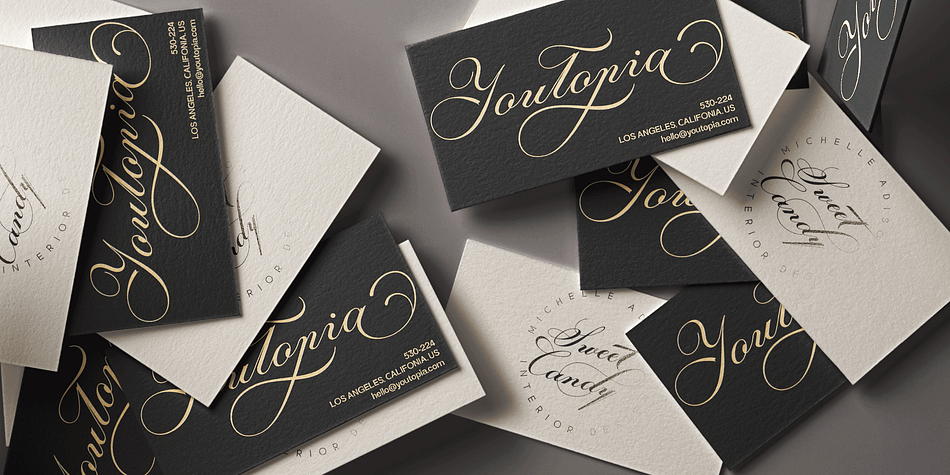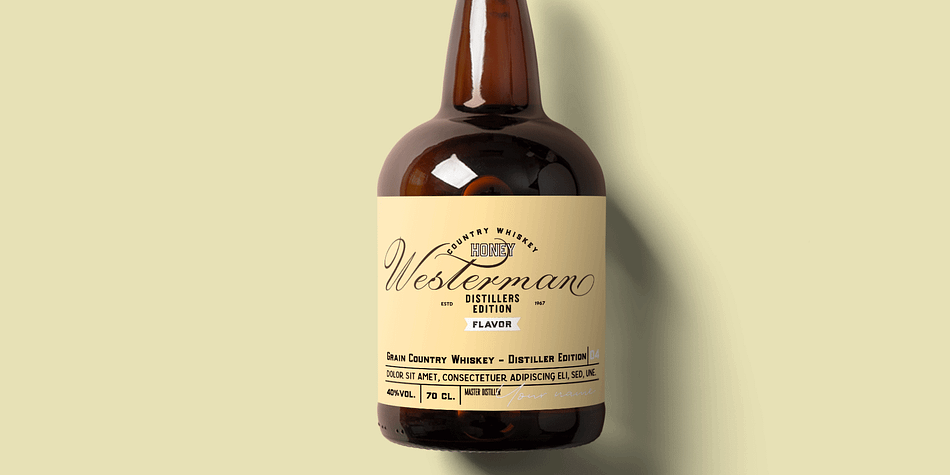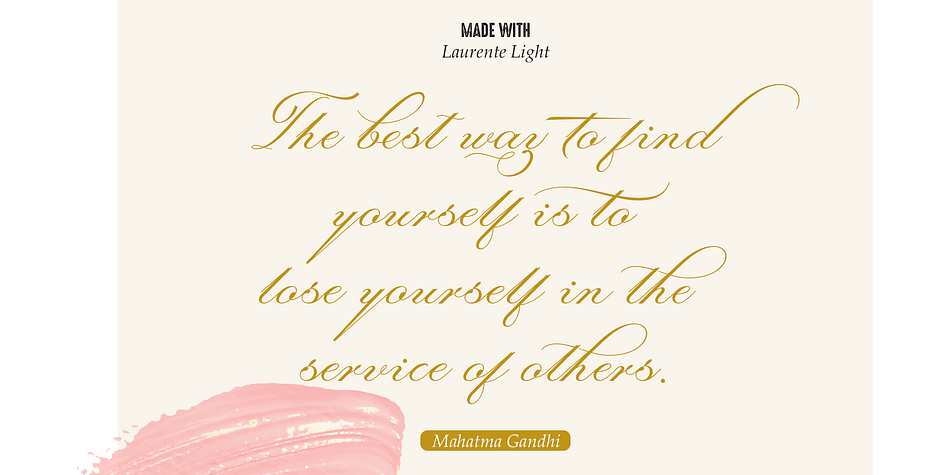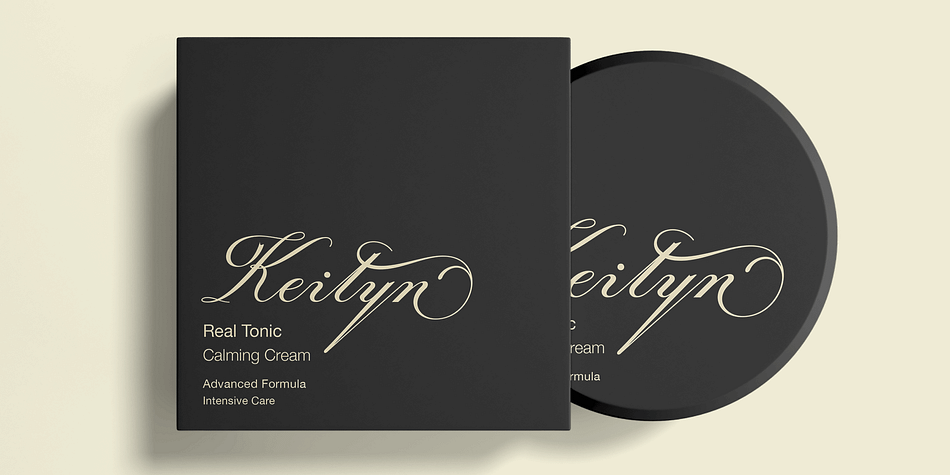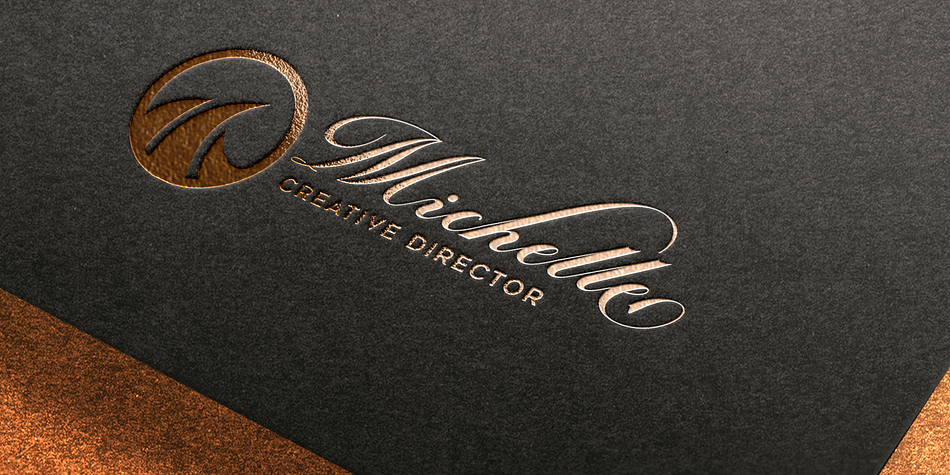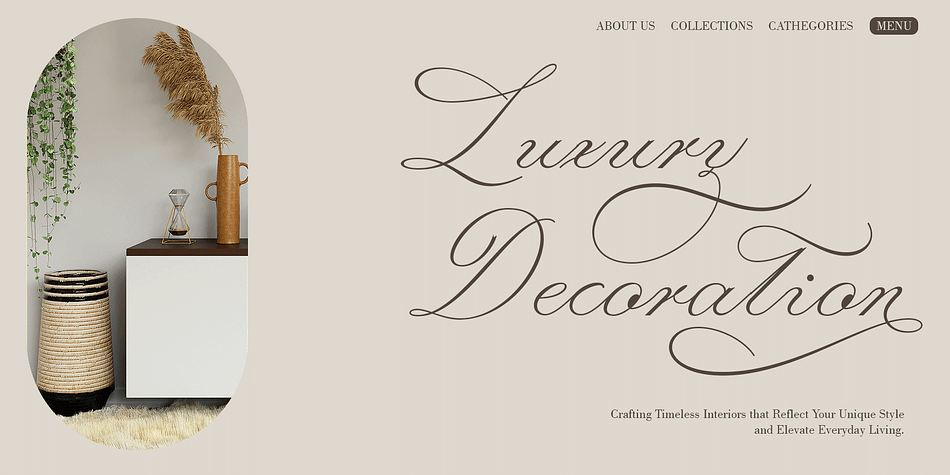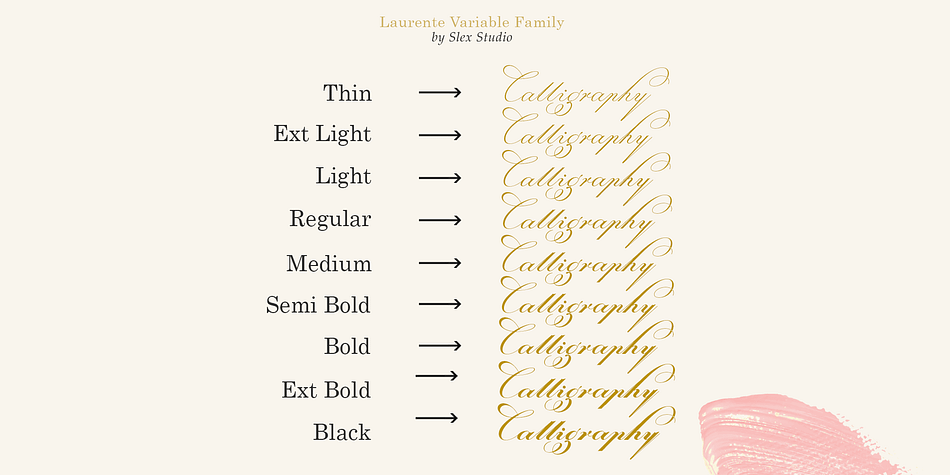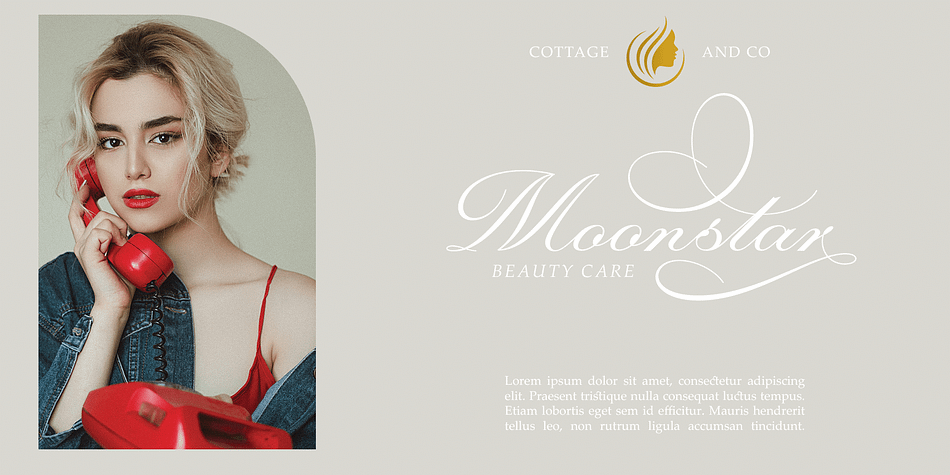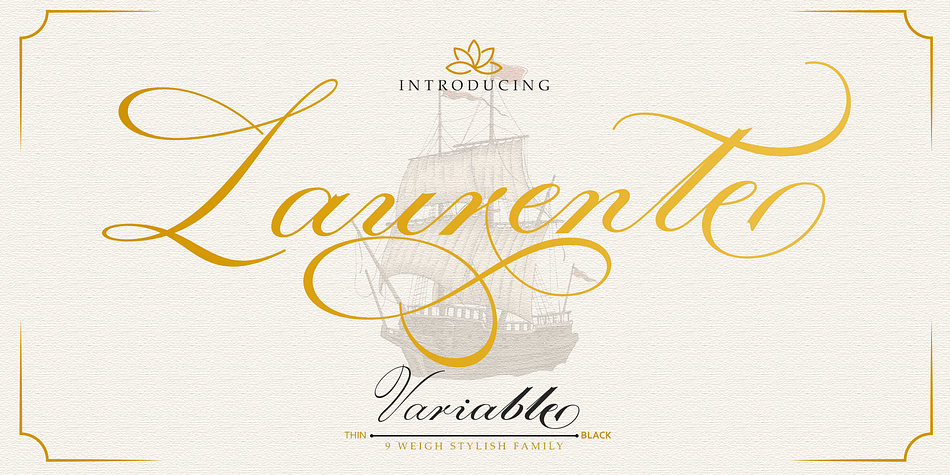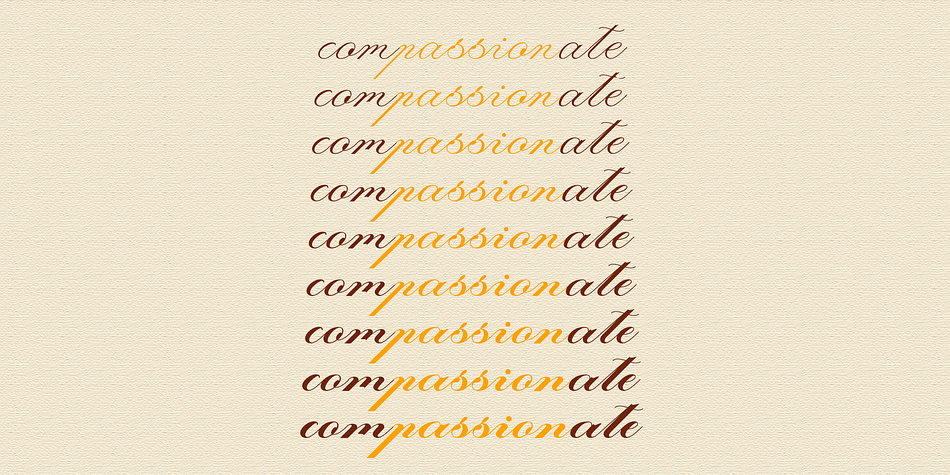
Laurente Family Script Pro
Designed by Muhammad Rayyan, Laurente Family Script Pro is a modern calligraphy and script font family. This typeface has ten styles and was published by Slex Studio.
“Laurente Font Family” is a family of letters designed in a modern and elegant style. This font has attractive and versatile characteristics, making it suitable for various design purposes, from logo designs, titles, to small text. With balanced proportions, clear layouts, and subtle details, the Laurente Font Family gives a professional and neat impression to every design work. With a variety of styles and letter weights available, Laurente allows designers to experiment and create unique and interesting looks in their projects.
Styles Modern Calligraphy, Script
Designer Muhammad Rayyan